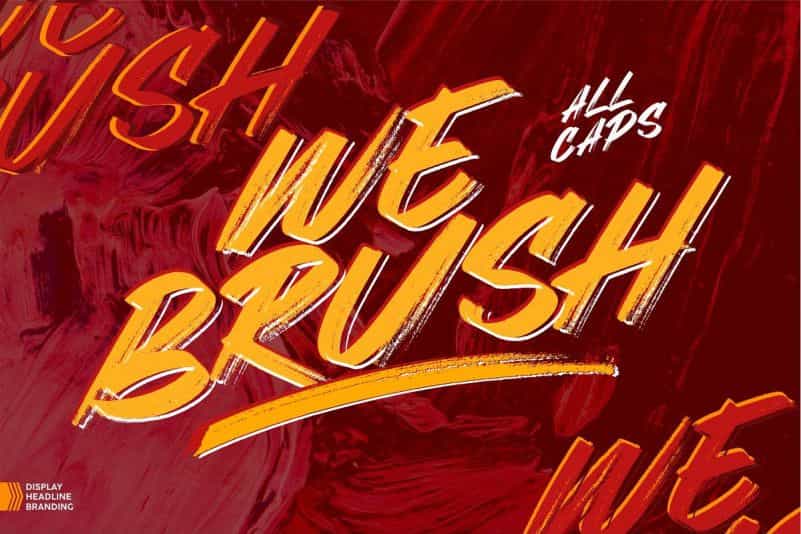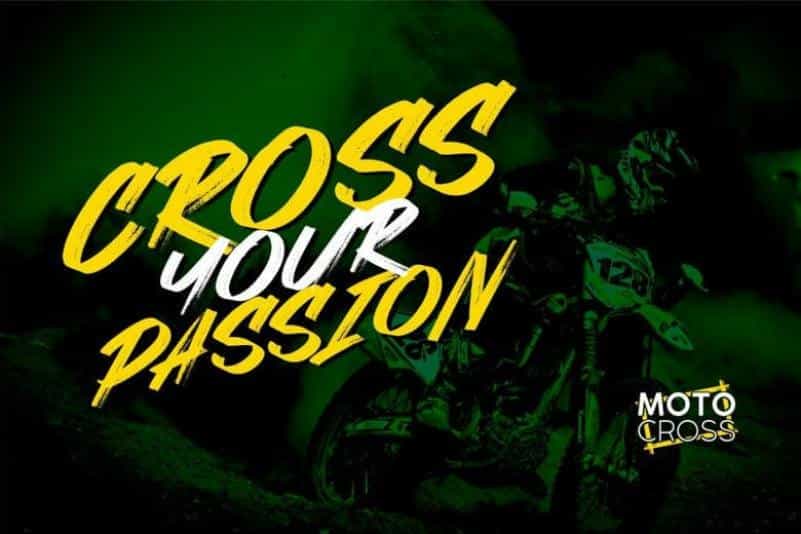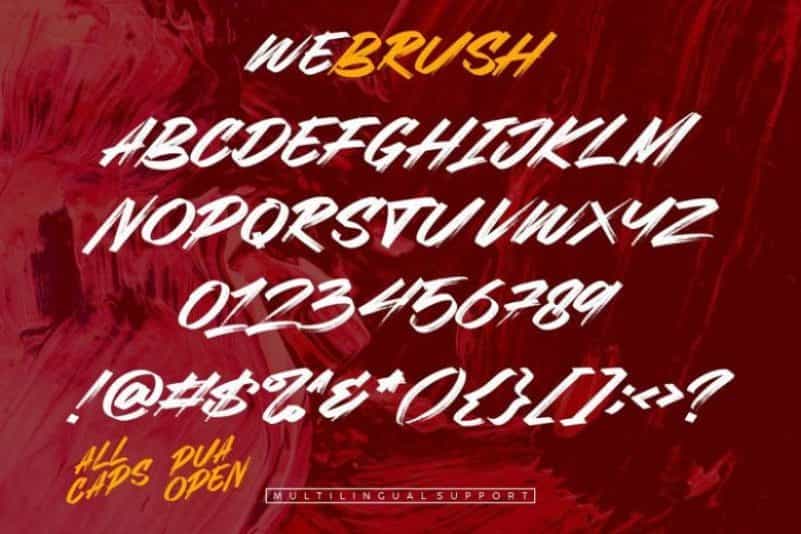
WebRush font, which is the latest product we present with proud. It is a newly approved brand and garisman std is the desgner of the drug. Go a step beyond and utilize classic calligraphy with a modern touch by taking Webrush Brush Font to use, which is she is all a powerful mix of elegant curves and a fresh urban edge; delivering a stylish script that is a quaint abode of an eye-catching appeal to your logo designs, brand images, literary fare, packaging etc. You can use the typeface on your social media posts as well.